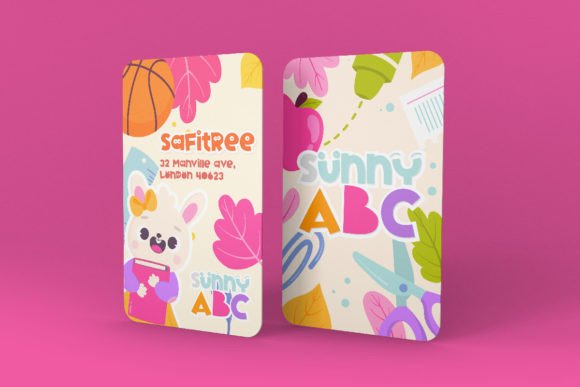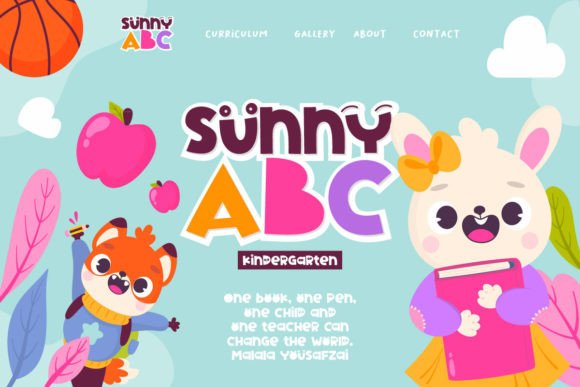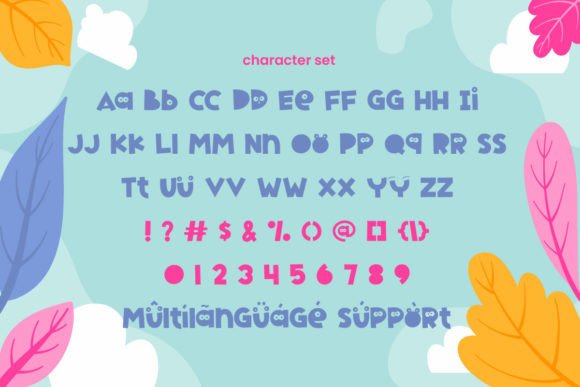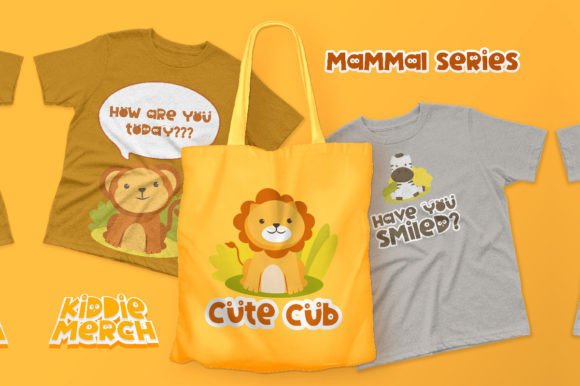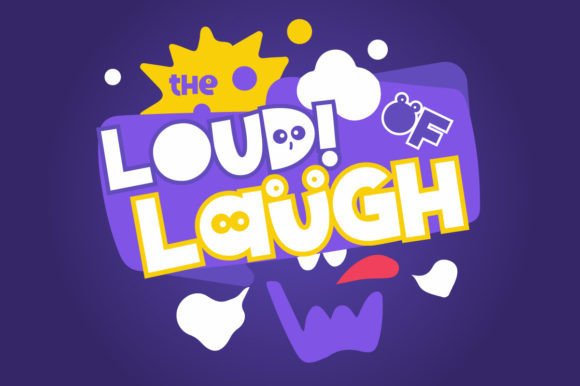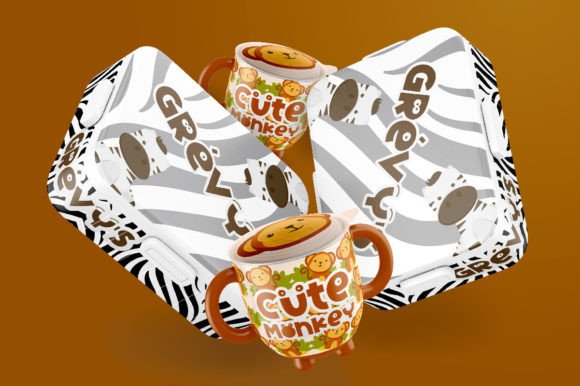
Introducing Comedy Style Font: Add a Dash of Humor to Your Designs
Are you tired of using the same old fonts in your designs? Do you want to add a touch of humor and whimsy to your creations? Look no further than Comedy Style Font, a funny display font that’s sure to bring a smile to your audience’s faces. In this article, we’ll explore the unique features of Comedy Style Font and how you can use it to take your designs to the next level.
What is Comedy Style Font?
Comedy Style Font is a display font that features a comic emoticon style, perfect for adding a playful and goofy feel to your designs. What sets it apart from other fonts is its unique character for each letter, ensuring that your text never gets boring. Whether you’re designing a comic, invitation card, or poster, Comedy Style Font is sure to add a dash of humor and personality to your work.
Unique Features of Comedy Style Font
- Unique Characters: Each letter in Comedy Style Font has a distinct character, making it perfect for designs that require a personal touch.
- Comic Emoticon Style: The font’s comic emoticon style adds a playful and humorous feel to your designs, making it ideal for comics, greeting cards, and posters.
- Display Font: Comedy Style Font is a display font, making it perfect for headlines, titles, and short text.
- Multipurpose: You can use Comedy Style Font for a wide range of designs, including comics, invitation cards, greeting cards, posters, brochures, covers, product packaging, brand logos, labels, web pages, and quotes.
How to Use Comedy Style Font in Your Designs
Comedy Style Font is versatile and can be used in various designs, including:
- Comics: Add a touch of humor to your comics with Comedy Style Font, making your characters and storylines more engaging.
- Invitation Cards: Create playful and fun invitation cards for parties, events, or celebrations.
- Greeting Cards: Add a dash of humor to your greeting cards, making them more personalized and memorable.
- Posters: Create eye-catching posters for movies, events, or products with Comedy Style Font.
- Brochures: Add a playful touch to your brochures, making them more engaging and fun to read.
- Covers: Use Comedy Style Font for book covers, magazine covers, or CD covers to make them more attention-grabbing.
- Product Packaging: Add a touch of humor to your product packaging, making it more memorable and fun.
- Brand Logo: Create a playful and memorable brand logo with Comedy Style Font.
- Labels: Use Comedy Style Font for labels, making them more fun and engaging.
- Web Page: Add a dash of humor to your web page with Comedy Style Font, making it more engaging and fun to navigate.
- Quotes: Create fun and engaging quotes with Comedy Style Font, perfect for social media or inspirational posters.
Tips for Using Comedy Style Font Effectively
- Use it Sparingly: While Comedy Style Font is fun and playful, it’s best to use it sparingly to avoid overwhelming your design.
- Pair it with Other Fonts: Pair Comedy Style Font with other fonts to create a unique and visually appealing design.
- Experiment with Colors: Experiment with different colors to find the perfect combination that matches your brand or design.
- Keep it Legible: Ensure that your text is legible, even when using a playful font like Comedy Style Font.
Comedy Style Font is a fun and playful display font that’s perfect for adding a dash of humor to your designs. With its unique characters and comic emoticon style, it’s sure to make your designs more engaging and memorable. Whether you’re a designer, crafter, or DIY enthusiast, Comedy Style Font is a great addition to your font collection. So why not give it a try and see how it can take your designs to the next level?